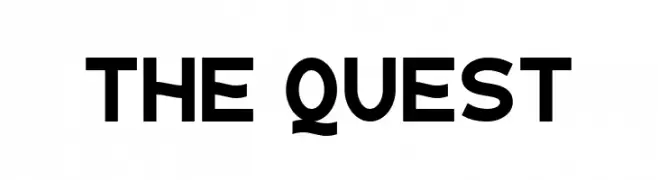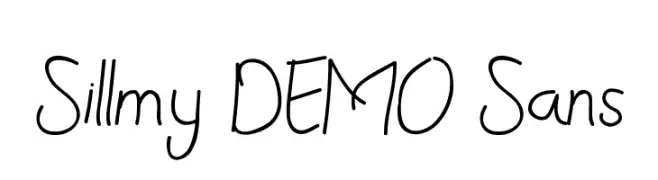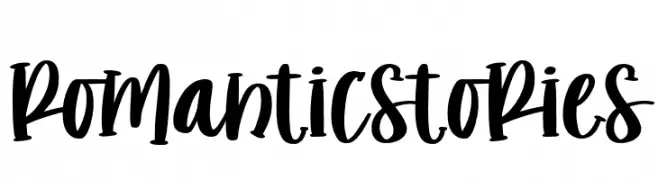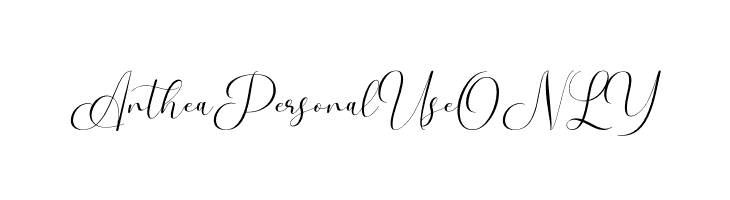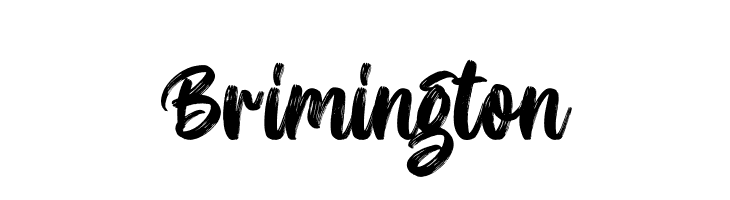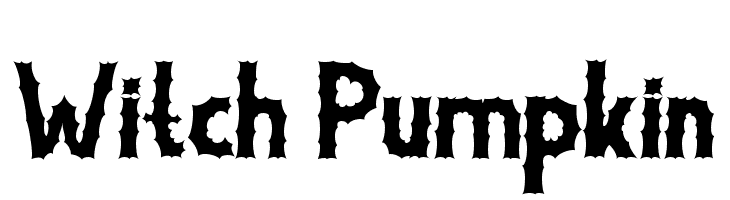
A modern, elegant script font with flowing, cursive letterforms.
A bold, modern font with geometric shapes and clean lines.
An elegant script font with a flowing, handwritten style.
A bold, futuristic 3D font with geometric, blocky letterforms.
A bold, playful font with a hand-drawn, casual style.
A playful, handwritten-style font with a casual and dynamic appearance.
A bold, playful handwritten font with thick, flowing strokes.
A playful and elegant script font with flowing, connected letterforms.
Abstract, electric-themed decorative font with energetic shapes.
A geometric, italicized outline font with a modern and dynamic style.